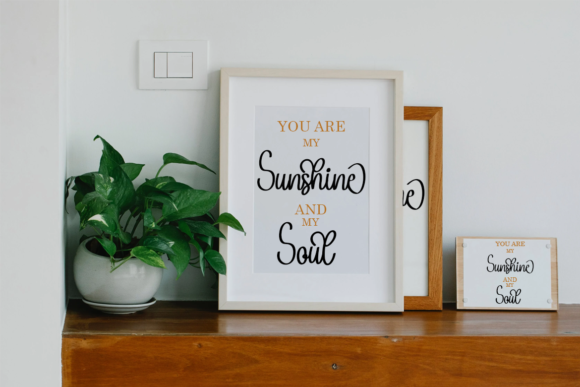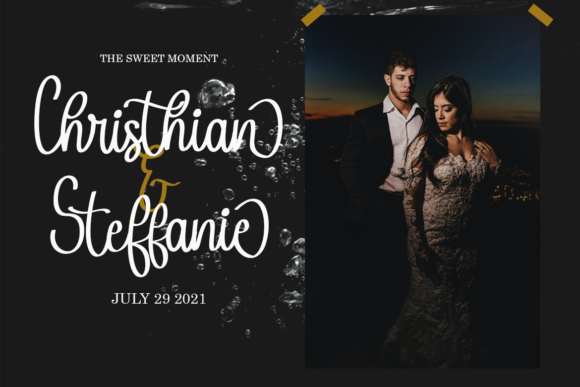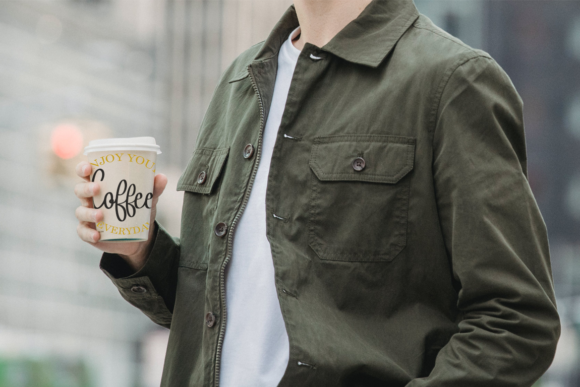
Introduction to Chaching Font
Have you ever found yourself staring at a blank canvas, desperately searching for the perfect font to bring your creative project to life? That moment of frustration is all too familiar for designers. But what if I told you there’s a solution that can make your design process a whole lot easier? Enter the Chaching Font, a beautiful and delicate script font that’s sure to elevate your designs to new heights.
With its elegant and refined aesthetic, the Chaching Font is a valuable resource for designers who crave high-quality typography for their creative projects. Whether you’re working on a branding project or simply need a unique touch for your website, this font is sure to impress. Plus, its transparent background makes it easy to use and customize to fit your design needs.
Key Features of Chaching Font
- High-quality design: Chaching Font is a unique and creative design resource that adds a touch of elegance to any project.
- Unique characteristics: Chaching Font features a distinctive and modern design that sets it apart from other fonts in its class.
- Perfect for creative projects: This font is ideal for use in graphic design, web design, and other creative projects where a unique and high-quality font is required.
Honest Review: Chaching Font
Here’s what I think of this font:
- ✨ Unique design: The Chaching Font has a distinct style that sets it apart from other fonts. Its quirky aesthetic makes it perfect for projects that need a touch of personality.
- ✨ Versatility: This font is incredibly versatile and can be used in a variety of contexts, from headings to body text.
- ⚠️ Limited character set: The font’s character set is somewhat limited, which may not be ideal for projects that require a wide range of characters.
Overall, the Chaching Font is a great addition to any designer’s toolkit. While it may have some limitations, its unique design and versatility make it a valuable resource for creative projects.
Tips for Getting the Most Out of Chaching Font
The Chaching Font is ideal for various design projects, including logos, social media graphics, and marketing materials. Its unique design makes it perfect for creating attention-grabbing headlines and titles. You can also use it to add a personal touch to your designs and make them more engaging.